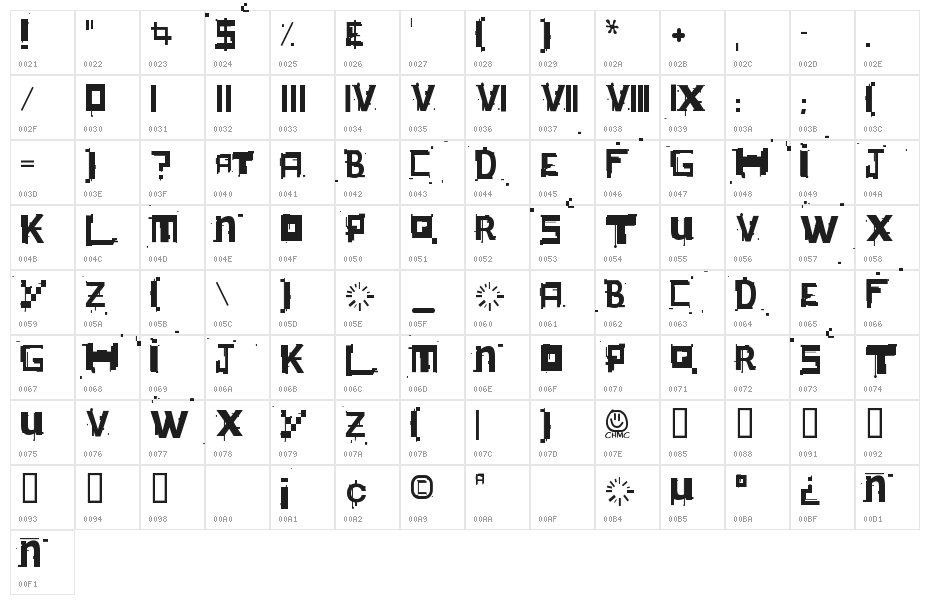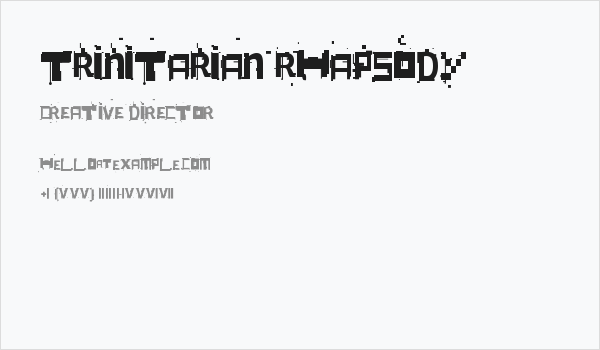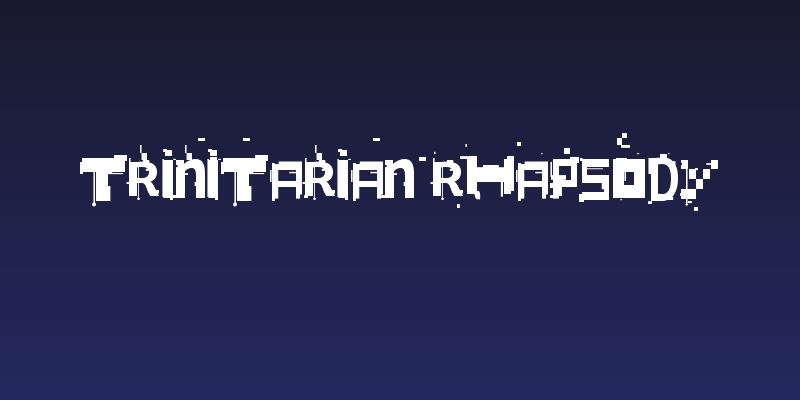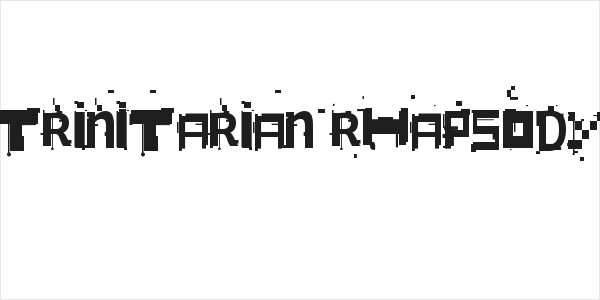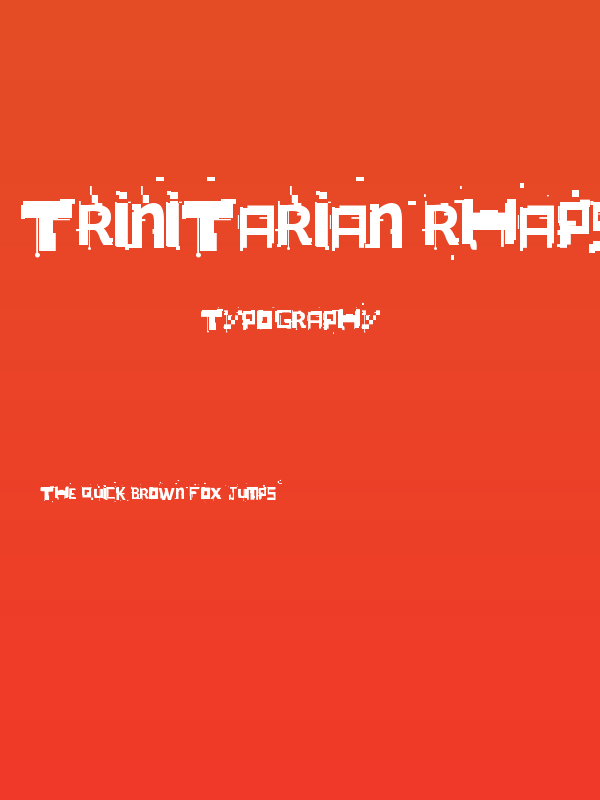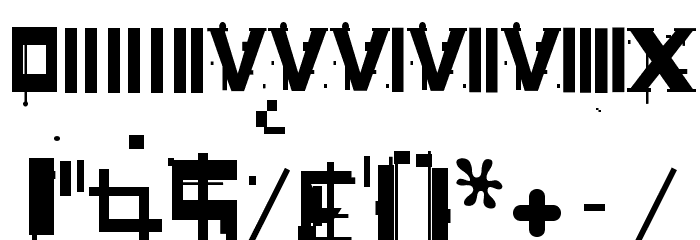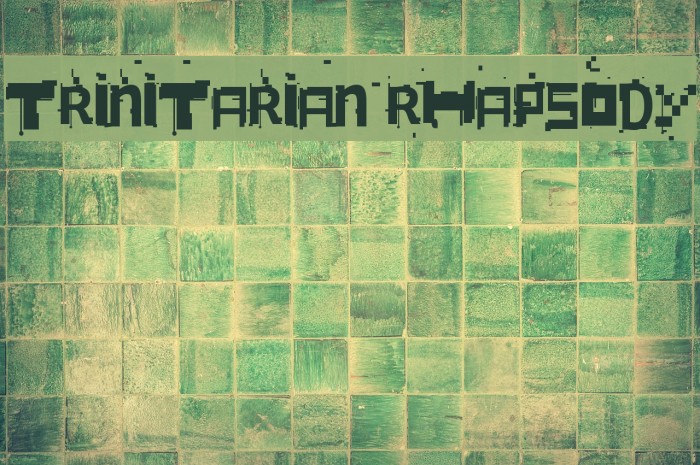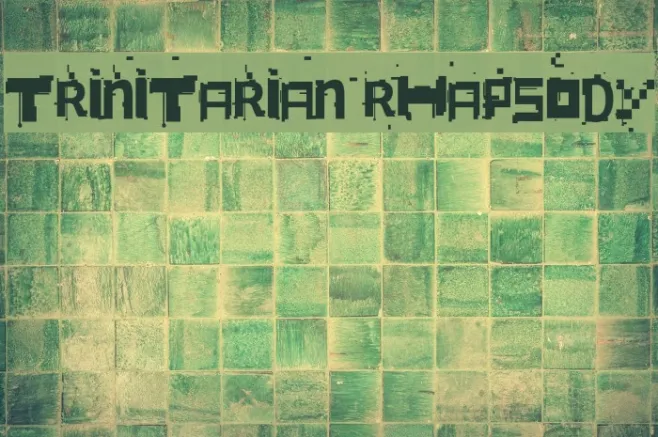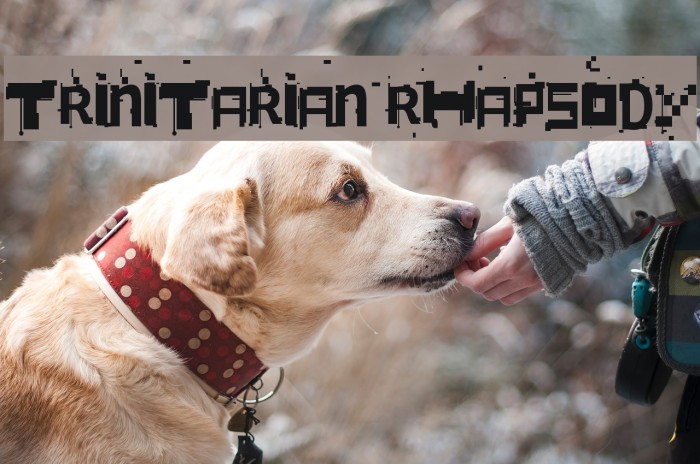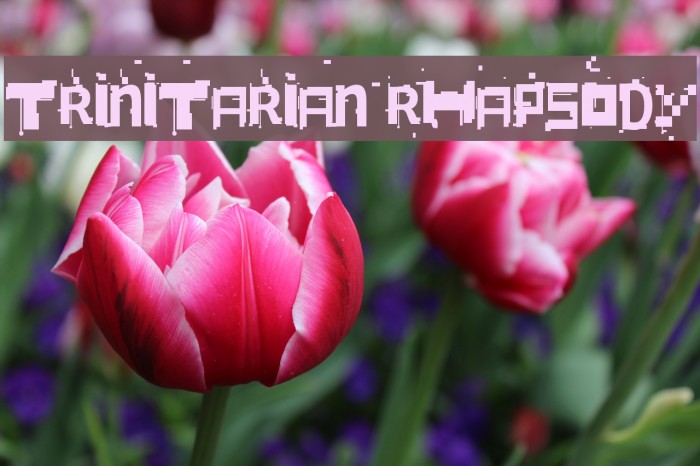
Trinitarian Rhapsody Font
Trinitarian Rhapsody Description
This font features a unique and edgy design with a digital glitch effect, giving it a modern and avant-garde appearance. The characters are bold and blocky, with irregular pixelated edges that create a sense of movement and distortion. The uppercase and lowercase letters maintain a consistent style, while the numbers and special characters follow the same glitchy aesthetic. This font stands out with its high contrast and bold presence, making it ideal for attention-grabbing designs.
| Proposed Projects | Ideal for digital art, music album covers, video game titles, and tech-themed branding. |